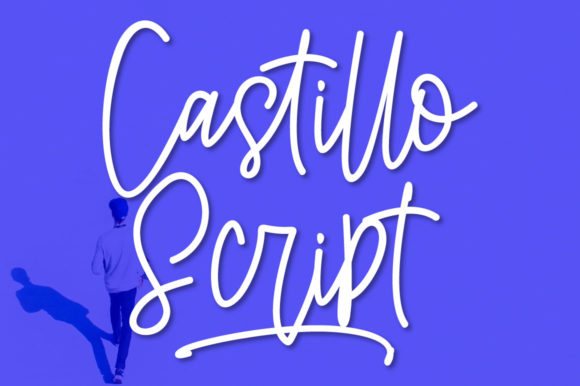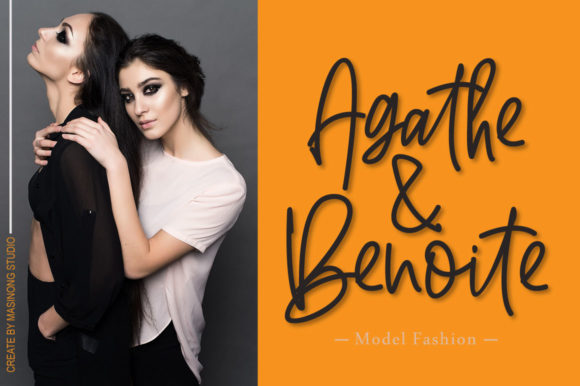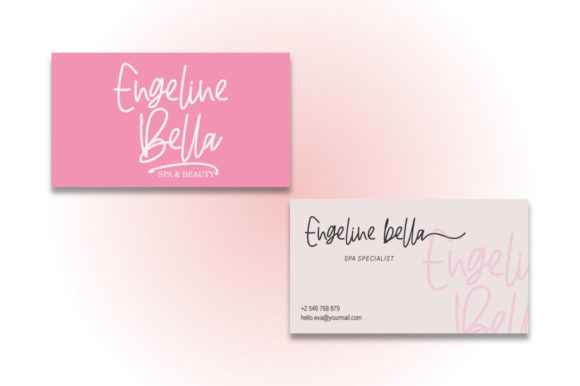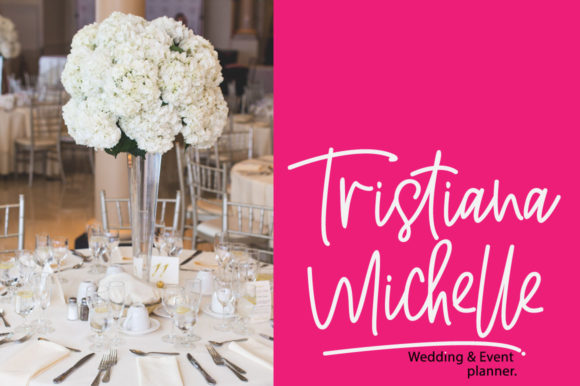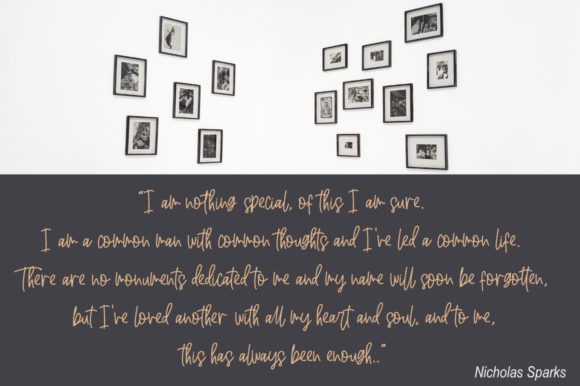
Castillo Font
About Castillo Font
Castillo is a gorgeous signature script that radiates authenticity. Use it to take any design project to the next level!